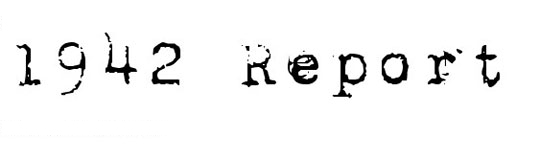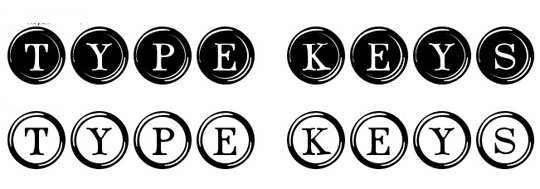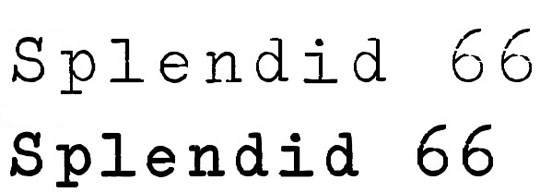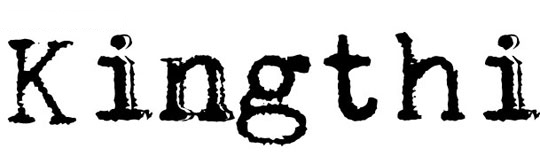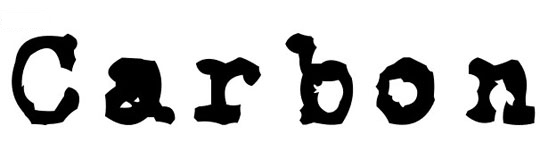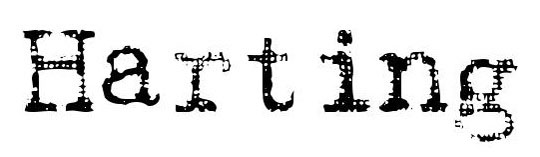
Typewriter fonts bring a touch of nostalgia, authenticity, and raw charm to any design. Whether you’re crafting a vintage poster, designing a book cover, or adding character to a personal project, typewriter fonts offer that unmistakable mechanical grit that digital fonts often lack. These fonts aren’t just about aesthetics—they tell a story, evoking the clatter of keys, the smudged ink, and the tangible feel of words pressed onto paper.
In this collection, we’ve gathered some of the best typewriter fonts available, each with its own personality—from rugged and uneven to sleek and professional. Whether you need something for a retro logo, a detective-themed project, or just love the timeless appeal of typewritten text, these fonts deliver. Let’s dive into the world of typewriter fonts and find the perfect one for your next creative endeavor.
Mom’s Typewriter
A charmingly imperfect font that mimics the nostalgic clatter of an old typewriter, perfect for heartfelt letters or vintage-inspired designs.
1942 Report
Inspired by wartime typewritten documents, this font exudes urgency and history, with uneven strokes that feel authentically mid-century.
Type Keys
Bold and slightly mechanical, Type Keys captures the rhythmic strike of metal keys, ideal for posters or tech-themed projects.
Splendid 66
A sleek, monospaced font with a touch of 1960s flair—think spy novels or retro-futuristic branding.
Kingthings Trypewriter
Elegant yet rustic, this font blends typewriter aesthetics with calligraphic grace, great for invitations or book covers.
F25 Executive
Sharp and professional, F25 Executive mimics the crispness of a well-maintained office typewriter from the 1970s.
Telegraphem
With its telegraphic Morse-code vibe, this font adds a cryptic, steampunk edge to headlines or logos.
Underwood Champion
A tribute to the iconic Underwood typewriter, this font balances readability with rugged, ink-smudged character.
Remington Noiseless
True to its name, this font offers clean, evenly spaced letters—a “noiseless” take on classic typewriter typography.
Carbon Type
Designed to mimic carbon-copy duplicates, this rough-edged font is perfect for grunge designs or detective-themed projects.
Bulky Refuse
Heavy and industrial, Bulky Refuse feels like a typewriter that’s seen decades of hard use—ideal for dystopian or punk aesthetics.
Harting Plain
Minimalist and monospaced, Harting Plain strips the typewriter style down to its essentials for a modern, utilitarian look.
Junko’s Typewriter
Playful and slightly erratic, Junko’s Typewriter feels like a well-loved machine with personality—great for zines or quirky branding.
L.C. Smith 5 Typewriter
A faithful recreation of early 20th-century type, complete with subtle ink bleeds and a timeless newspaper feel.
Uncle Typewriter
Warm and slightly uneven, this font channels the charm of handwritten notes typed on a family heirloom machine.
Typical Writer
As the name suggests, this font delivers a no-nonsense, classic typewriter look with crisp edges and even spacing.
Old Printing Press
Blurs the line between typewriter and letterpress, with deep impressions and a tactile, historical vibe.